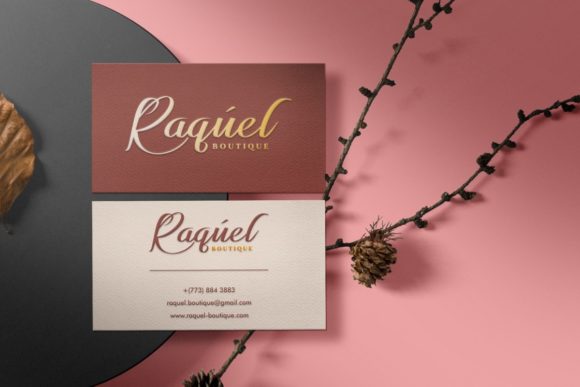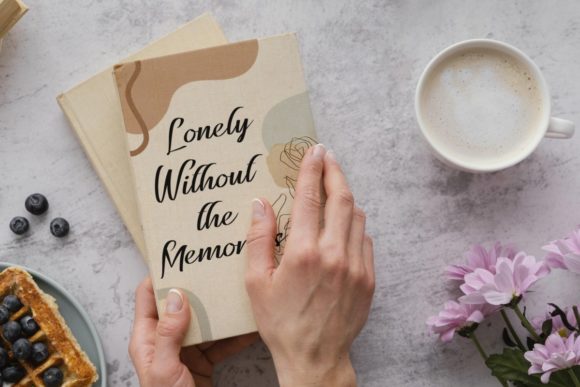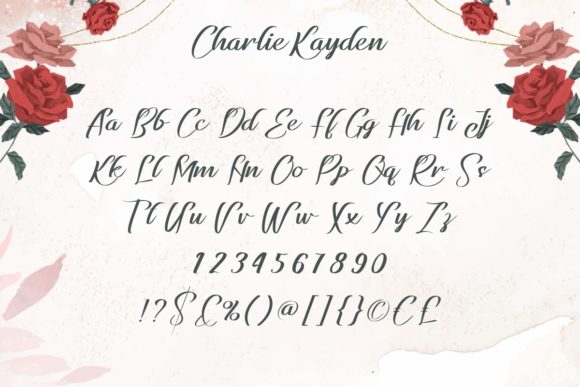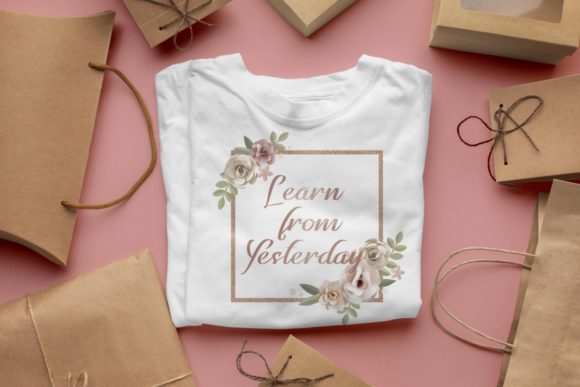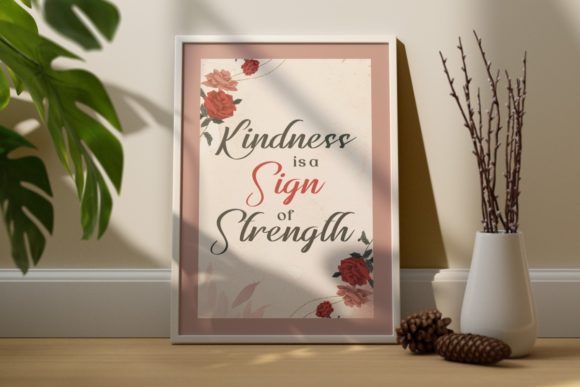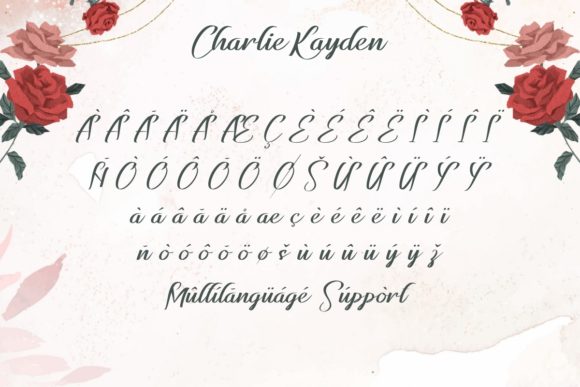
Introducing Charlie Kayden Font: Elevate Your Designs with Elegance
In the world of typography, few fonts manage to capture the essence of elegance and style as effectively as Charlie Kayden. This stunning calligraphy script font is a perfect blend of classy, casual, and modern cursive hand-lettered letters, making it an ideal match for a wide range of projects. Whether you’re a designer, craftsperson, or simply someone who appreciates beautiful typography, Charlie Kayden is sure to impress.
The Characteristics of Charlie Kayden Font
Charlie Kayden is more than just a font; it’s an experience. Its elegant characters are meticulously designed to bring a touch of sophistication to any project. The font’s calligraphy script style is characterized by:
• Flowing Lines: The fluid, connected letters create a sense of movement and harmony, perfect for designs that require a dynamic feel.
• Elegant Swashes: The font includes beautiful swashes that add an extra layer of elegance, ideal for headings, titles, and emphasis.
• Versatile Weight: Charlie Kayden offers a range of weights, allowing you to use it for both body text and headings, ensuring consistency across your design.
Applications of Charlie Kayden Font
The versatility of Charlie Kayden makes it suitable for a wide spectrum of applications. Here are some of the areas where this font truly shines:
• Cosmetic Products: Add a touch of luxury to your branding with Charlie Kayden. Its elegant feel is perfect for product labels, packaging, and marketing materials.
• Houseware and Home Decor: From invitations to thank you cards, Charlie Kayden brings a classy touch to your homeware and decor projects.
• Wedding Invitations: Make your wedding invitations or ceremony programs truly special with this beautiful font. It’s ideal for creating romantic and memorable stationery.
• Romantic Movies and Theater: Charlie Kayden’s cinematic feel makes it a great choice for movie titles, posters, and theater productions, especially for romantic genres.
• Digital and Print Media: Use Charlie Kayden in your digital content, such as blog headers, social media graphics, and newsletters, or in print materials like brochures and flyers.
Why Choose Charlie Kayden Font?
With so many fonts available, why should you choose Charlie Kayden for your projects? Here are a few compelling reasons:
• Unique and Memorable: Charlie Kayden stands out from more common fonts, ensuring your project is memorable and impactful.
• Time-Saving: The font’s versatility and comprehensive character set save you time, as you can use it across various aspects of your project without needing multiple fonts.
• Easy to Read: Despite its elegant and cursive nature, Charlie Kayden remains highly legible, making it suitable for both headings and body text.
Tips for Using Charlie Kayden Effectively
To get the most out of Charlie Kayden, consider the following tips:
• Pair with Simple Fonts: For maximum impact, pair Charlie Kayden with simpler, sans-serif fonts for body text to create a balanced design.
• Utilize Swashes: Don’t be afraid to use the font’s swashes to add flair to your headings and titles.
• Experiment with Colors: While Charlie Kayden looks stunning in black or dark colors, don’t hesitate to experiment with soft pastels or metallic colors to match your project’s theme.
Charlie Kayden is more than just a font; it’s a design statement. Its elegant calligraphy script, combined with its versatility and wide range of applications, makes it an invaluable asset for designers and crafters alike. Whether you’re working on a romantic wedding invitation, a luxury brand campaign, or a creative project, Charlie Kayden is sure to elevate your design to new heights of elegance and sophistication.